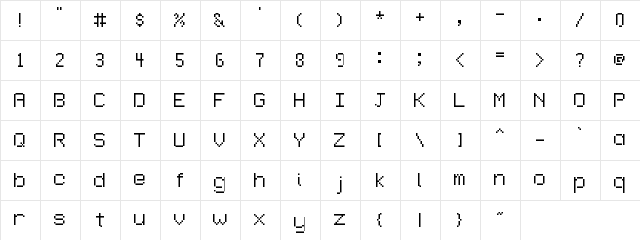
OpenUp Regular
Design Context for OpenUp Typeface
OpenUp is a composed and adaptable typeface that performs quietly and consistently across a wide range of design contexts.